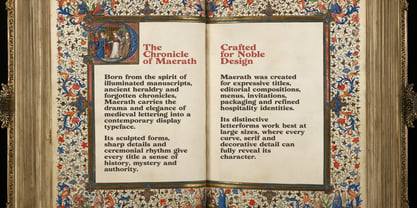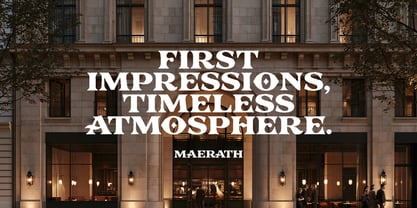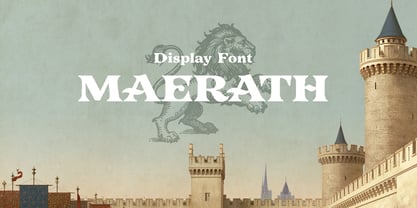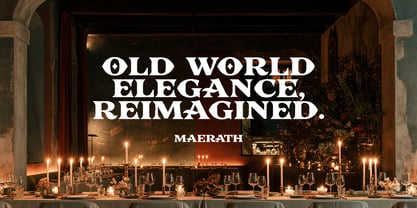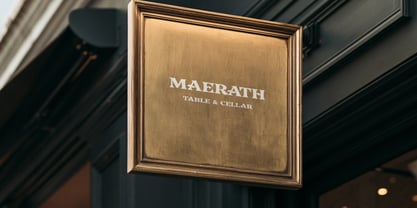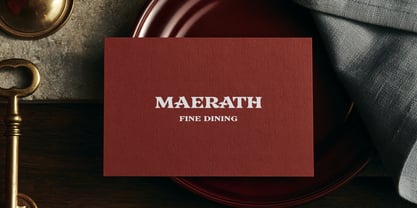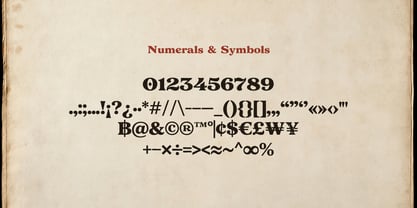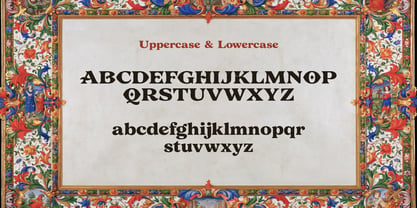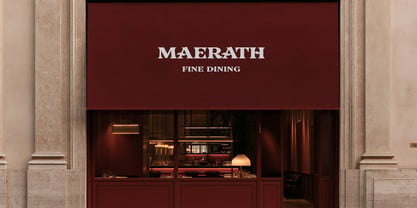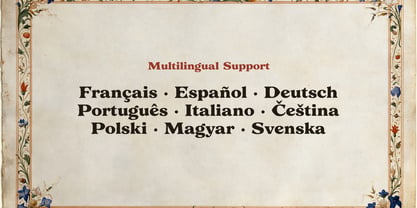
Maerath
von Kavoon
Die Schriftfamilie Maerath wurde von Anton Didenko entworfen und von Kavoon veröffentlicht. Maerath enthält 1 Stile. Mehr über diese Familie
Maerath Medieval Display Font
Maerath is a distinctive display typeface inspired by medieval manuscripts, heraldic lettering and old European book typography. Sculpted serifs, dramatic proportions and unusual letterforms give it a noble, mysterious and timeless character. Designed for expressive headlines, restaurant and hospitality branding, wine labels, menus, book covers, invitations, editorial layouts, packaging and projects that need a strong historical atmosphere.